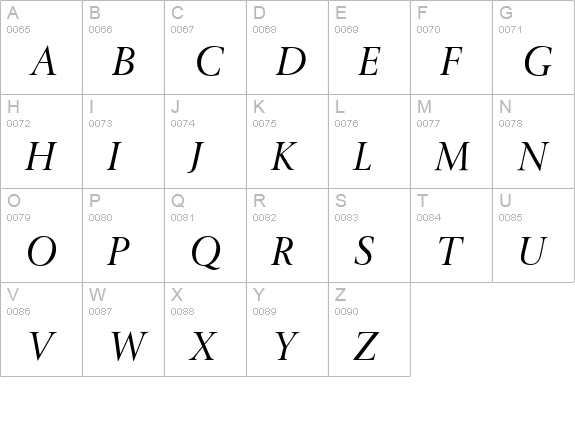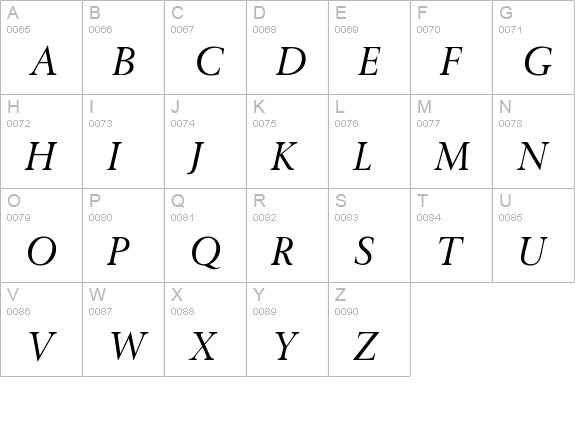
I772-Roman-Italic Font Details
I772-Roman-Italic is a distinctive, italic variant in the I772 typeface family \xE2\x80\x94 well suited to design and typography projects.
The I772-Roman-Italic font exudes elegance and sophistication with its classic Roman styling and sleek italicized design. Its timeless aesthetic makes it a versatile choice for a wide range of design projects, from formal invitations to branding materials. The flowing curves and sharp serifs of this font add a touch of refinement to any text, making it a perfect choice for adding a touch of sophistication to your work. Best of all, the I772-Roman-Italic font is available for free download at FontsMarket.com. This means that you can easily access and use this beautiful font in your projects without any cost or hassle. Don't miss out on the opportunity to enhance your designs with this stunning typeface - download the I772-Roman-Italic font today and elevate your work to the next level.